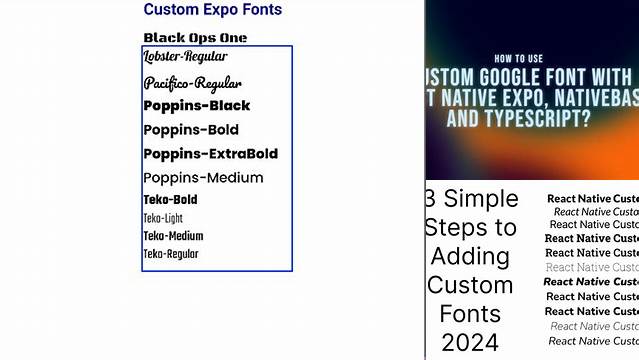
Google Fonts In React Native Expo: A Quick Guide
Hey there, fellow React Native devs! Ever find yourself wanting to make your Expo apps look chef's kiss with some snazzy custom fonts? You know, ditching that default system font and injecting some serious personality? Well, you're in luck, because today we're diving deep into how to use Google Fonts in React Native Expo. It's easier than you think, guys, and it can seriously elevate your app's user experience and visual appeal. Forget boring text; let's make your app pop!
We'll break down the whole process, from finding the perfect font to getting it seamlessly integrated into your project. Whether you're a seasoned pro or just starting out with Expo, this guide is designed to be super straightforward. So, grab your favorite beverage, get comfy, and let's get those beautiful fonts loaded up!
Why Bother with Custom Fonts?
Alright, let's chat for a sec about why you'd even want to go through the trouble of adding custom fonts. I mean, the default fonts in React Native are perfectly functional, right? True, they are. But think about it: custom fonts in React Native Expo aren't just about looking pretty; they're a fundamental part of your app's brand identity and overall user experience. Imagine scrolling through an app with a generic, uninspired font versus one that uses a sleek, modern typeface. Which one feels more polished? Which one grabs your attention?
Brand Identity and Recognition
First off, custom fonts help establish your brand identity. If your app has a specific vibe – maybe it's playful, professional, minimalist, or bold – the font you choose is a huge part of conveying that. Consistent branding across your website, marketing materials, and app builds trust and recognition. Using a unique font that aligns with your brand can make your app instantly recognizable, even before the user reads a single word. It's like giving your app a distinct voice that speaks volumes about its personality. Think about major brands like Google (obviously!), Apple, or even your favorite coffee shop – they all have distinct visual styles, and the typography plays a massive role in that. For your app, this means creating a cohesive and memorable experience that resonates with your target audience. Don't underestimate the power of a good font to set the tone and make a lasting impression!
Enhancing Readability and User Experience
Beyond branding, using Google Fonts in React Native Expo can dramatically improve readability. Not all fonts are created equal when it comes to how easy they are to read on a screen, especially across different devices and screen sizes. Some fonts might look great in large print but become illegible when shrunk down. Others might have awkward letter spacing or confusing character shapes that strain the eyes. By selecting a font specifically designed for digital use, you can ensure your users have a comfortable and enjoyable reading experience. This is crucial for apps with a lot of text, like blogs, news readers, or e-books. Good typography reduces cognitive load, making it easier for users to consume your content. A well-chosen font can guide the reader's eye, improve comprehension, and ultimately lead to higher engagement and satisfaction. It’s about making your app accessible and a pleasure to use, not a chore.
Standing Out from the Crowd
Let's be real, the app store is crowded. To make your app shine, you need to pay attention to the details. Incorporating Google Fonts into your React Native Expo project is a relatively simple yet highly effective way to differentiate your app from the competition. While many apps might stick to the defaults, a thoughtful choice of typography signals professionalism and attention to detail. It shows users that you care about their experience and have invested time in making your app look and feel premium. This can be the deciding factor for a user deciding between your app and another similar one. So, if you want your app to look polished, professional, and a step above the rest, diving into the world of custom fonts is definitely a worthwhile endeavor. It’s a subtle but powerful way to make your mark and leave a positive, lasting impression.
Finding Your Perfect Font on Google Fonts
Okay, so you're convinced. Custom fonts are the way to go. Now, where do you find these digital gems? The answer, as our topic suggests, is Google Fonts! It's an incredible, free resource offering thousands of high-quality, open-source fonts that you can use for pretty much anything, including your React Native Expo apps. It's like a treasure trove for typophiles, guys. Navigating Google Fonts is pretty straightforward, and you can filter by various categories to narrow down your search.
Navigating the Google Fonts Library
When you head over to fonts.google.com, you'll see a huge collection of typefaces. Don't get overwhelmed! Google Fonts provides some awesome filtering tools to help you find exactly what you're looking for. You can filter by categories like Serif, Sans Serif, Display, Handwriting, and Monospace. If you're aiming for a modern, clean look, you'll probably be leaning towards Sans Serif. For a more traditional feel, Serif fonts are your friend. Display fonts are great for headings and short bursts of text, offering more decorative flair. Handwriting fonts can add a personal touch, and Monospace fonts are ideal for code or specific technical displays. You can also filter by language support, classification (like thickness and contrast), and even variable fonts, which offer a wide range of weights and styles within a single file. It’s a really robust system designed to help you discover the perfect font for your project.
Previewing and Selecting Fonts
One of the best things about Google Fonts is the interactive preview. As you browse, you can type in your own text – maybe a sample sentence from your app or just a classic "The quick brown fox jumps over the lazy dog" – to see how it looks in different fonts. This is super helpful for gauging readability and aesthetic appeal. Pay attention to how the letters connect (or don't!), the overall spacing, and how the font feels in different weights (like light, regular, medium, bold). Don't be afraid to try out a few different options. You might have an idea in your head, but seeing it rendered can sometimes lead you to a surprising and even better choice. Also, consider the purpose of the text. Headings might need a bolder, more distinctive font, while body text should prioritize clarity and ease of reading. You can even compare fonts side-by-side to make your decision easier.
Downloading Fonts for Your Project
Once you've found the one (or maybe a few!), you'll need to download them. On the font's page on Google Fonts, look for the "Download family" button. This will download a zip file containing all the different weights and styles of that font. Inside the zip file, you'll find the font files themselves, usually in .ttf (TrueType Font) or .otf (OpenType Font) formats. These are the formats we'll be using in our React Native Expo project. Make sure you download the specific weights and styles you plan to use in your app. Downloading the entire family is fine, but if you only need, say, the Regular and Bold weights, you can save some space by only extracting those. This is a small optimization, but hey, every bit counts in mobile development, right?
Conclusion: Elevate Your App with Typography!
And there you have it, folks! You've successfully learned how to use Google Fonts in React Native Expo. By following these steps, you can easily find, download, and integrate beautiful, high-quality typography into your applications. Remember, custom fonts in React Native Expo aren't just about aesthetics; they're a powerful tool for branding, enhancing user experience, and making your app stand out in a crowded marketplace. So go forth, experiment with different typefaces, and make your Expo apps visually stunning and incredibly user-friendly. Happy coding, and happy designing!